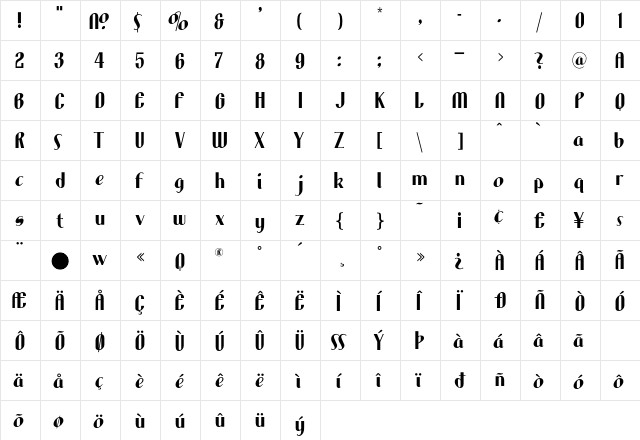
LHFAristocrat Regular Font Preview
LHFAristocrat Regular
LHFAristocrat Regular Font Details
Design Context for LHFAristocrat Typeface
LHFAristocrat is a composed and adaptable typeface that performs quietly and consistently across a wide range of design contexts.